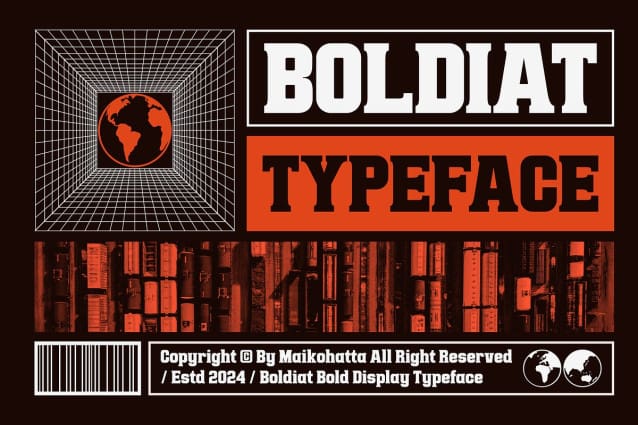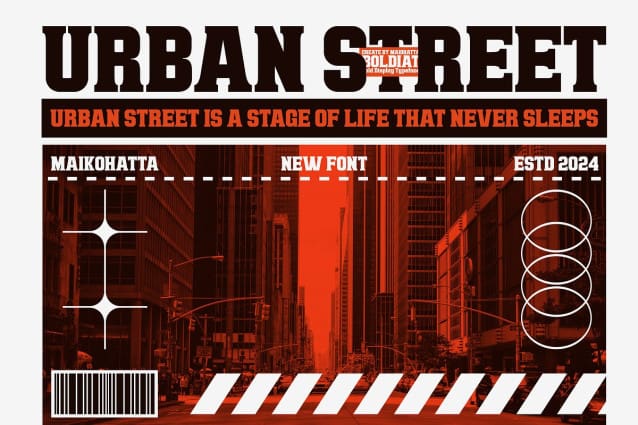
Boldiat Font
Boldiat Font – Bold Display Typeface. This font has a series of small or decorative projections called serifs at the ends of its characters. Serifs provide a more formal, classic, and easy-to-read appearance to printed text. Serif fonts are often used in formal documents, books, and print publications because of their good legibility at small text sizes.